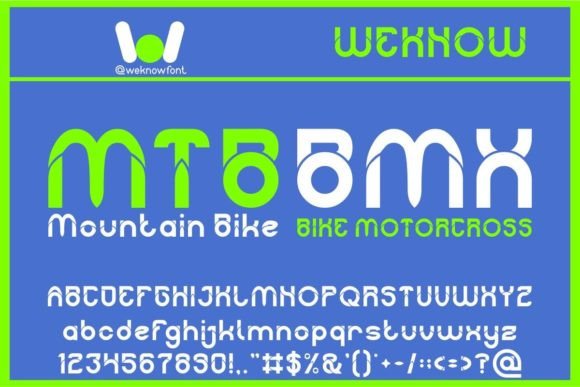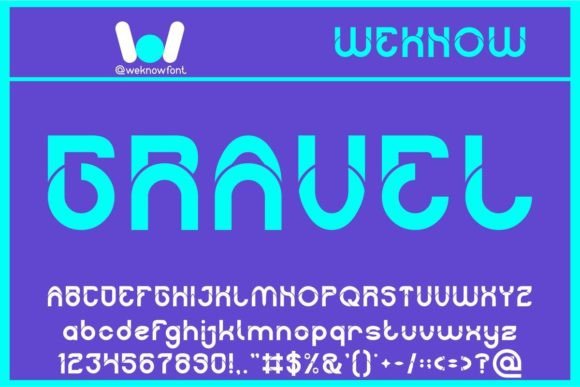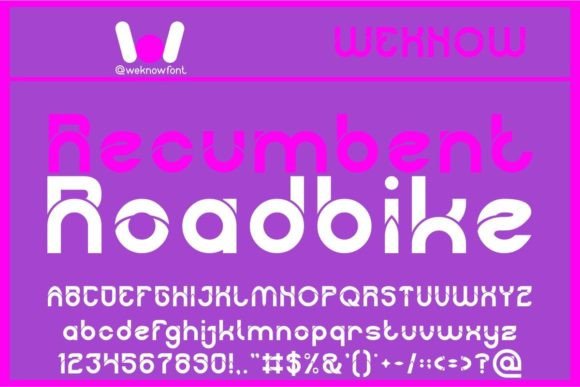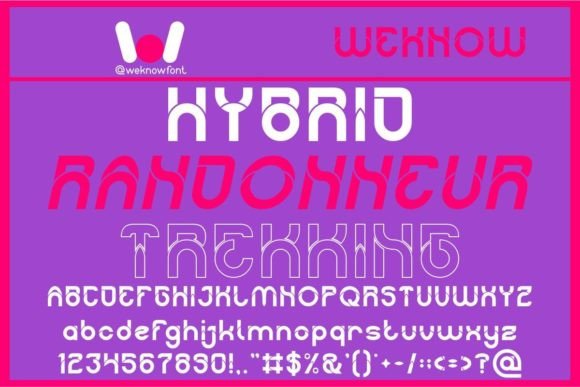
Bicycle Font: A Fun and Quirky Display Font for Creative Projects
Are you looking for a font that can add a touch of playfulness and whimsy to your designs? Look no further than the Bicycle Font! This fun and quirky display font is perfect for a wide range of applications, from crafting and DIY projects to graphic design and digital art. In this article, we’ll take a closer look at the Bicycle Font, its features, and how you can use it to add some personality to your creative projects.
What is Bicycle Font?
Bicycle Font is a display font designed to evoke a sense of fun and playfulness. Its whimsical and quirky personality makes it perfect for projects that require a bit of personality and charm. The font features bold lines, rounded edges, and a carefree spirit that’s sure to capture the attention of your audience.
Key Features of Bicycle Font
So, what makes Bicycle Font so special? Here are some of its key features:
- Unique and Quirky Design: Bicycle Font has a one-of-a-kind design that’s sure to stand out from the crowd. Its bold lines and rounded edges give it a playful and carefree feel that’s perfect for creative projects.
- Highly Versatile: Whether you’re working on a crafting project, a graphic design project, or a digital art piece, Bicycle Font is highly versatile and can be used in a wide range of applications.
- Easy to Read: Despite its playful design, Bicycle Font is easy to read and understand, making it perfect for headlines, titles, and other applications where readability is key.
- Scalable: Bicycle Font is highly scalable, which means you can use it in a variety of sizes and resolutions without losing any of its charm or character.
How to Use Bicycle Font in Your Creative Projects
So, how can you use Bicycle Font in your creative projects? Here are a few ideas to get you started:
- Crafting Projects: Bicycle Font is perfect for crafting projects like scrapbooking, card making, and DIY signs. Its playful design adds a touch of whimsy and personality to any project.
- Graphic Design Projects: Whether you’re designing a logo, a brochure, or a website, Bicycle Font can add a bit of personality and charm to your design.
- Digital Art: Bicycle Font is also perfect for digital art projects like illustrations, animations, and graphics. Its bold lines and rounded edges make it a great choice for digital art pieces.
Tips for Using Bicycle Font Effectively
Here are a few tips for using Bicycle Font effectively in your creative projects:
- Use it Sparingly: While Bicycle Font is a fun and playful font, it can be overwhelming if used too much. Use it sparingly to add a bit of personality to your design.
- Pair it with Other Fonts: Bicycle Font pairs well with other fonts, especially serif and sans-serif fonts. Experiment with different font combinations to find the perfect look for your project.
- Experiment with Colors: Bicycle Font looks great in a variety of colors, from bold and bright colors to more muted and pastel colors. Experiment with different colors to find the perfect look for your project.
In conclusion, Bicycle Font is a fun and quirky display font that’s perfect for a wide range of creative projects. Its unique and playful design makes it a great choice for crafting projects, graphic design projects, and digital art pieces. With its highly versatile design, ease of use, and scalability, Bicycle Font is a great addition to any designer’s toolkit. So why not give it a try and see how it can add some personality and charm to your next project?